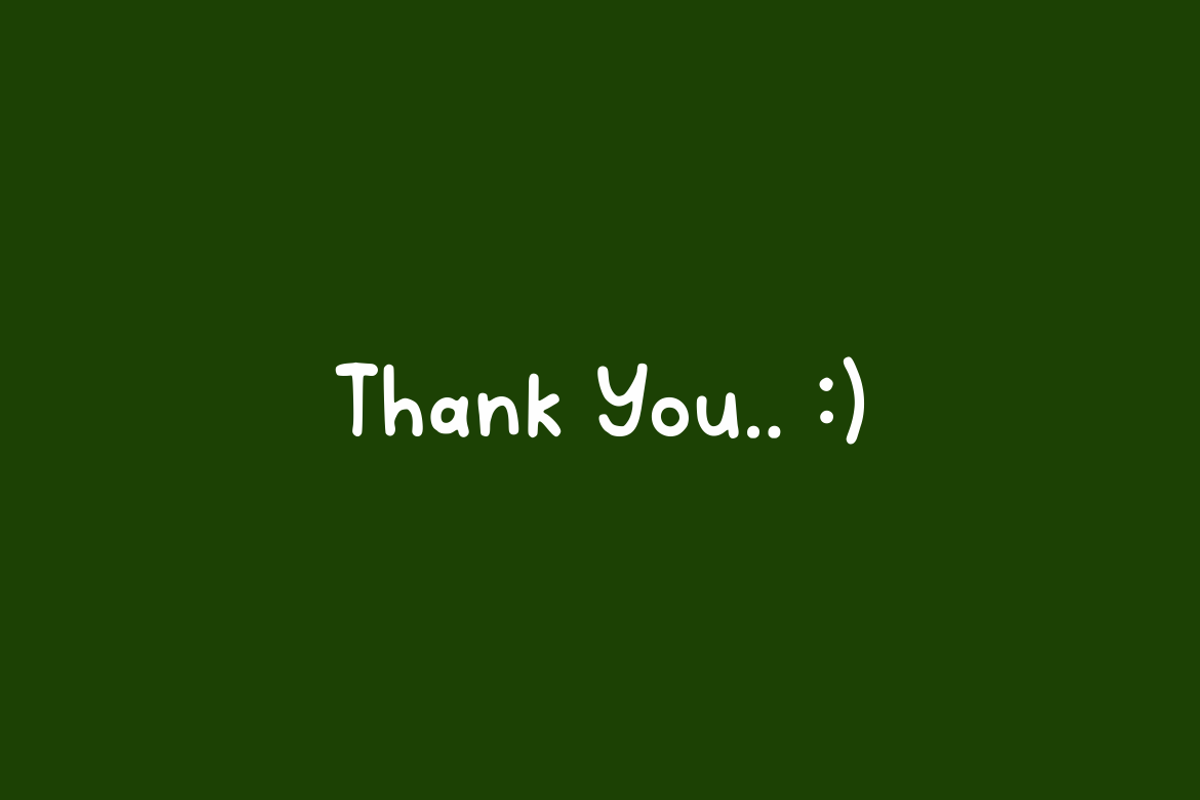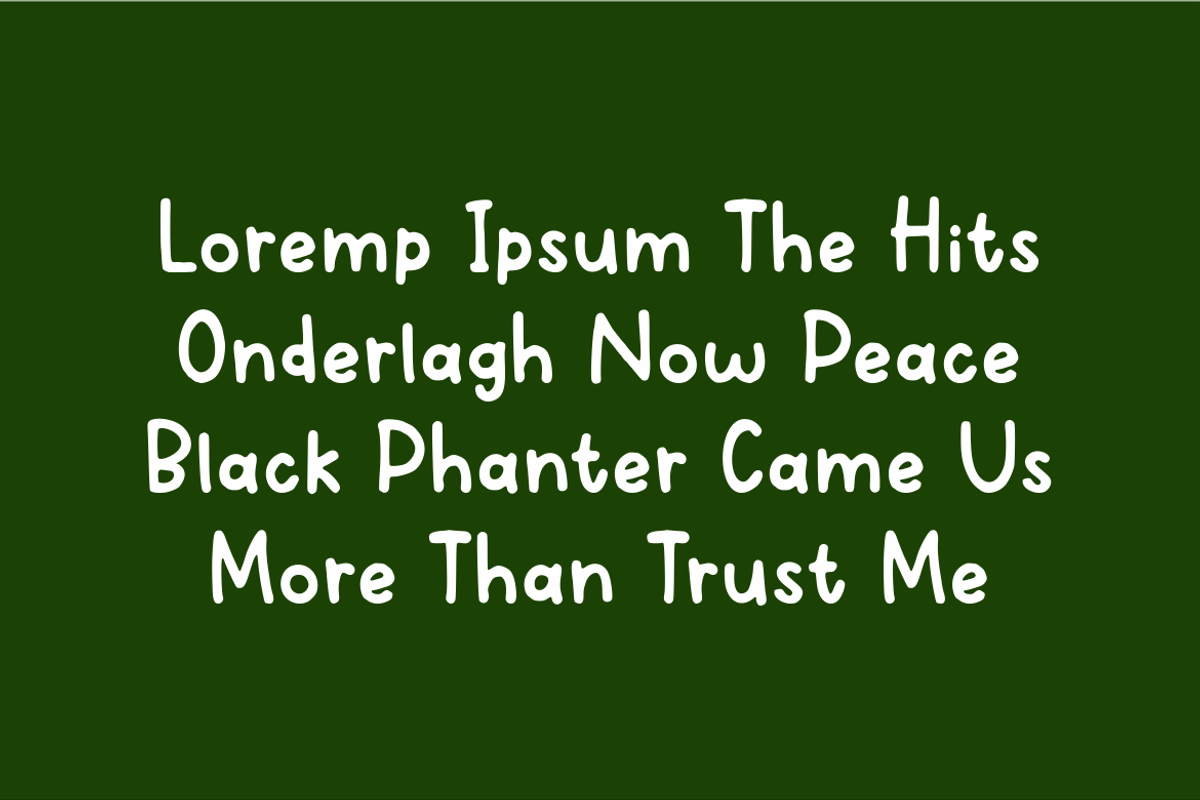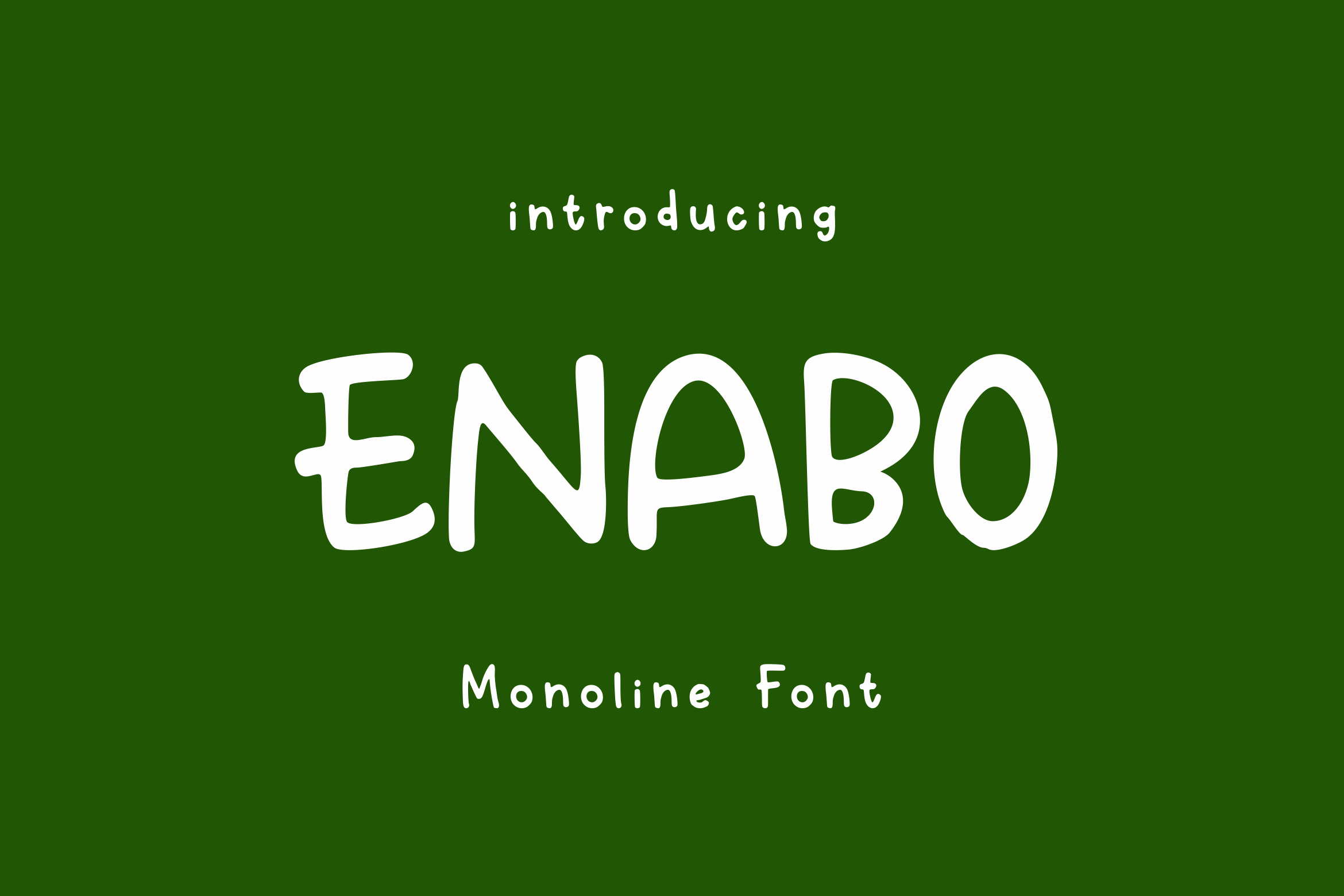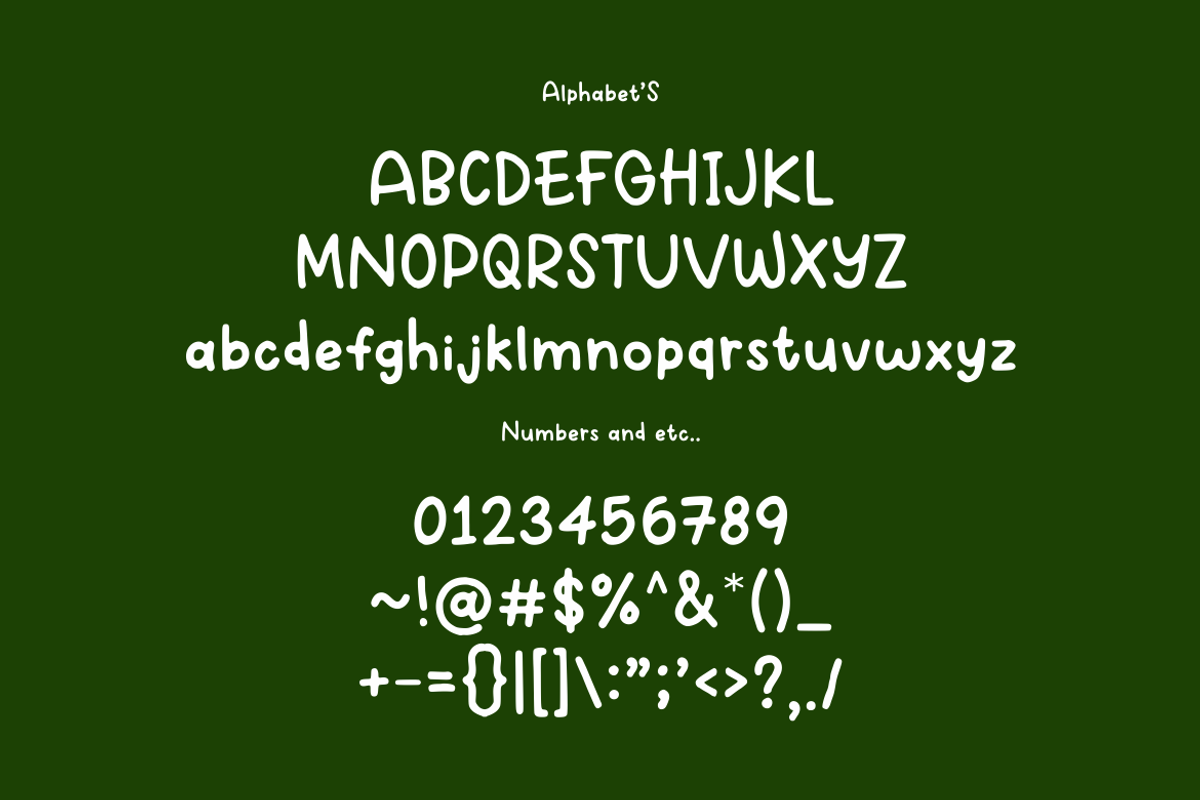
Enabo - Font 2025
Immerse in Enabo, a joyful, whimsical font with rounded charm. Perfect for storybooks, games, and more, it sparks imagination and adds vibrant energy!